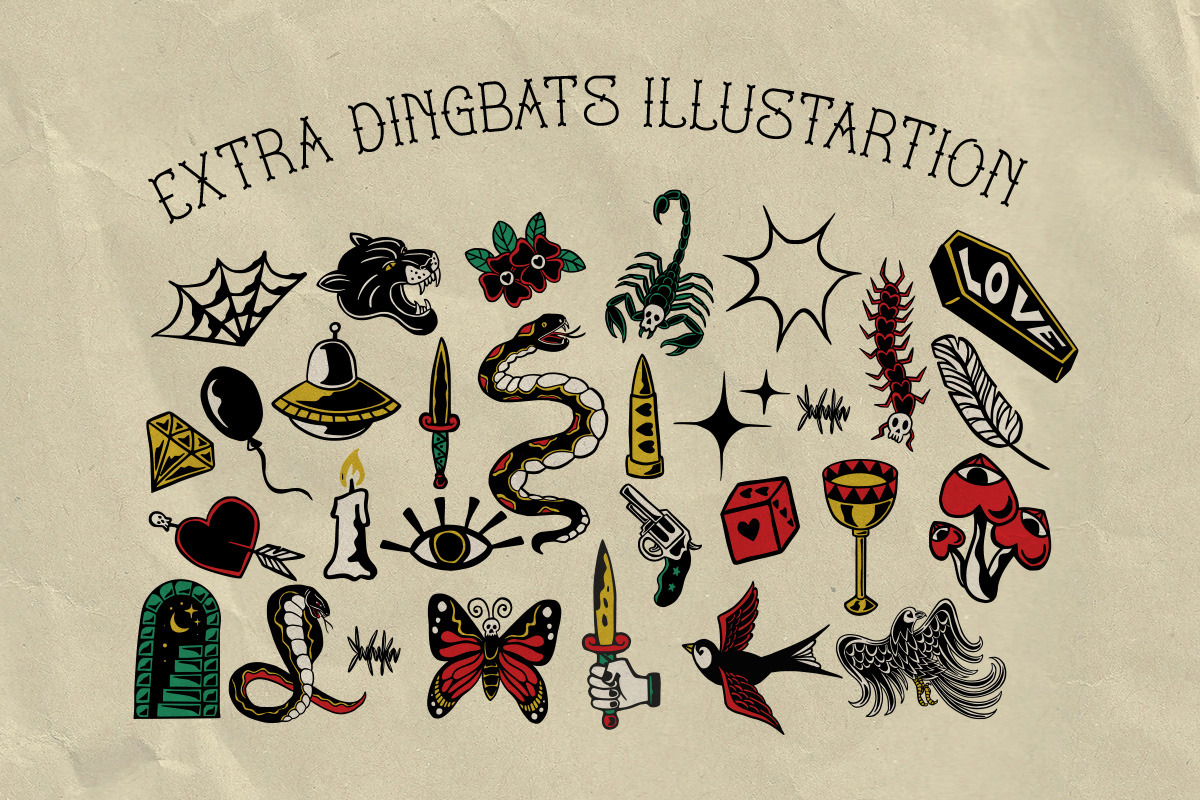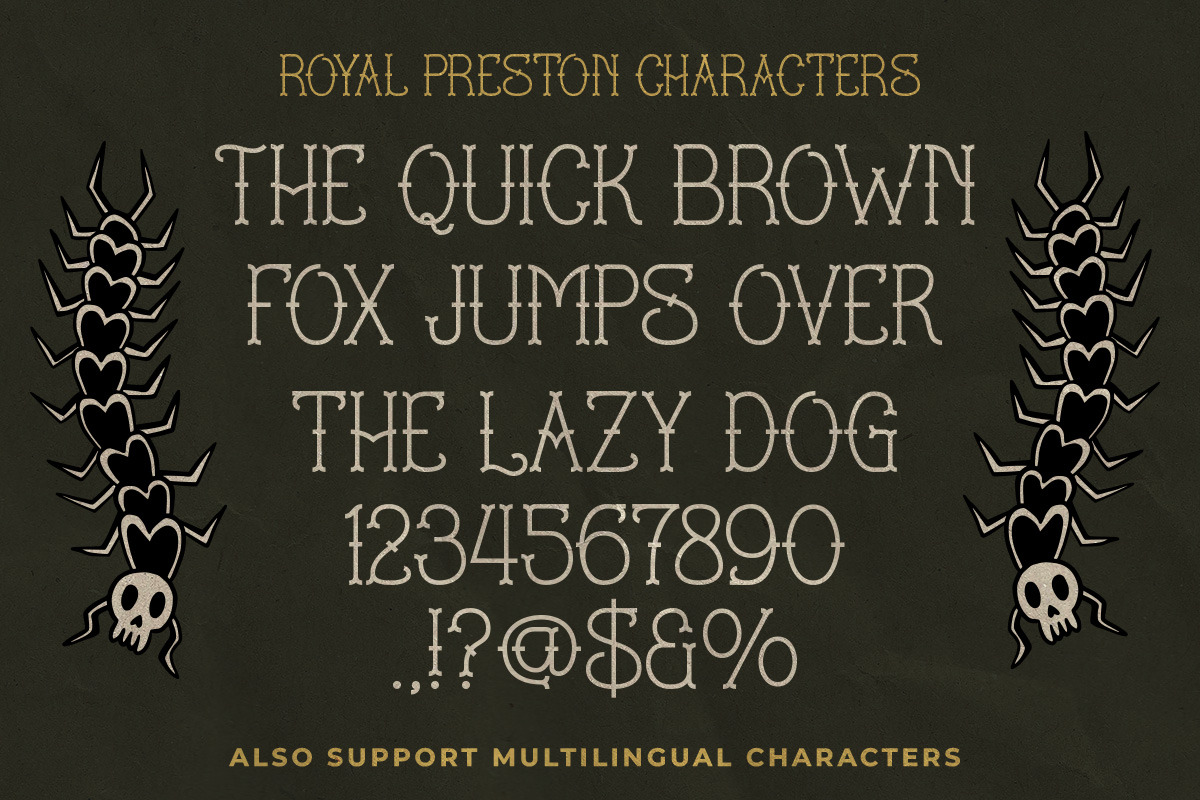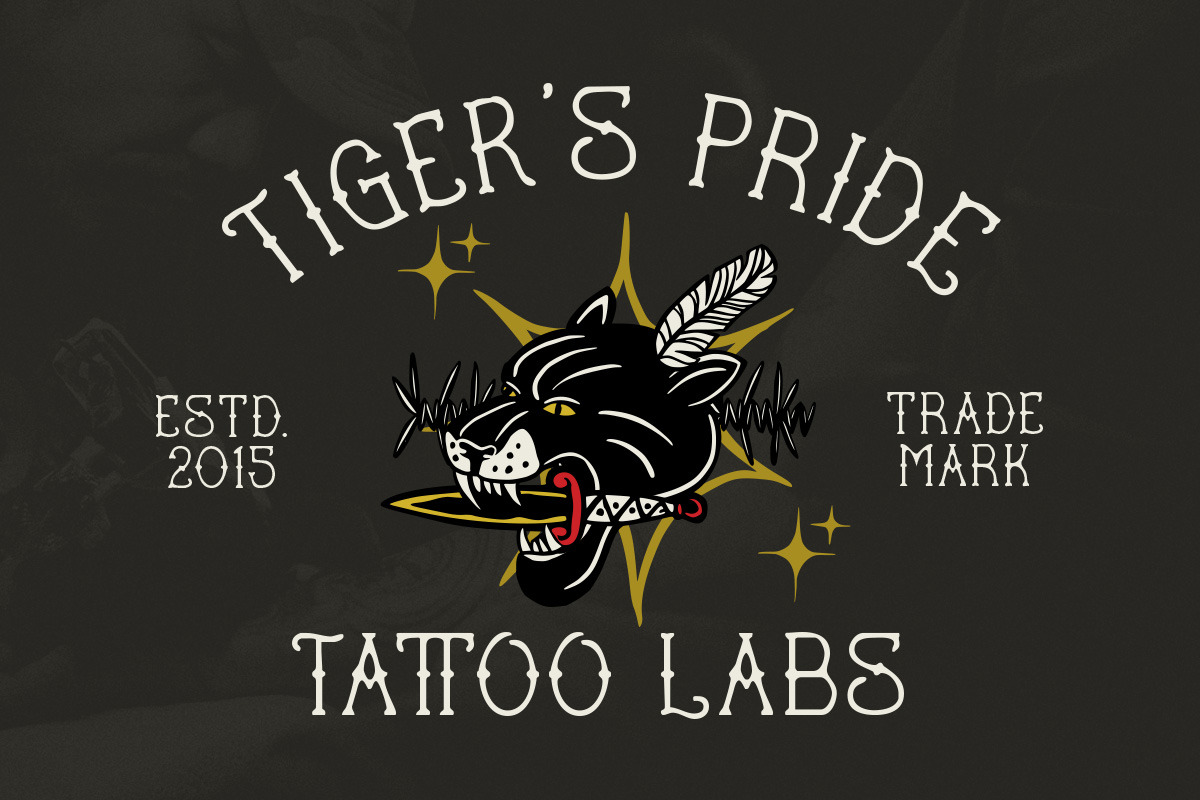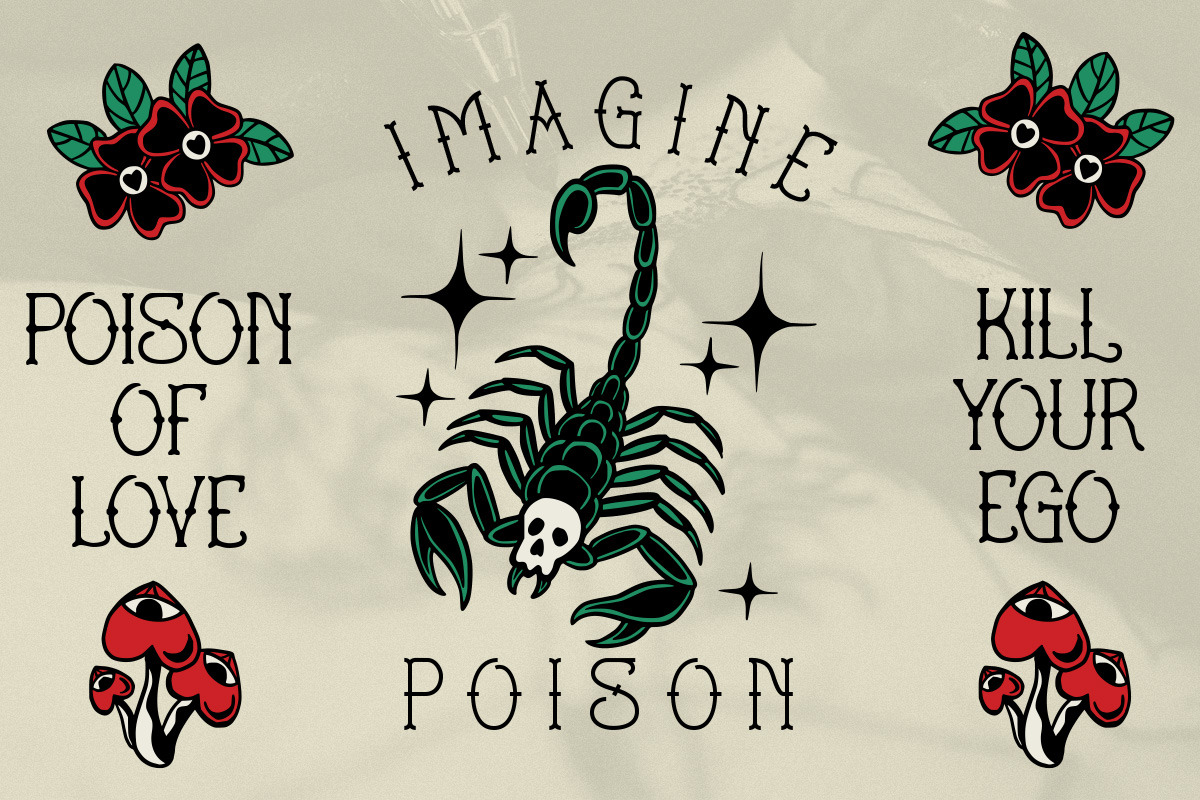
STH Royal Preston
INTRODUCING ROYAL PRESTON
This font inspired by traditional tattoo, looks hand drawn and organic. Royal Preston Comes with 6 styles ( Regular, Inked, Slanted, Spurs, Spurs Inked, and Spurs Slanted ). This typeface suitable for making traditional tattoos, vintage logotypes, vintage posters, etc. Royal Preston have a dingbats and extra Illustration.